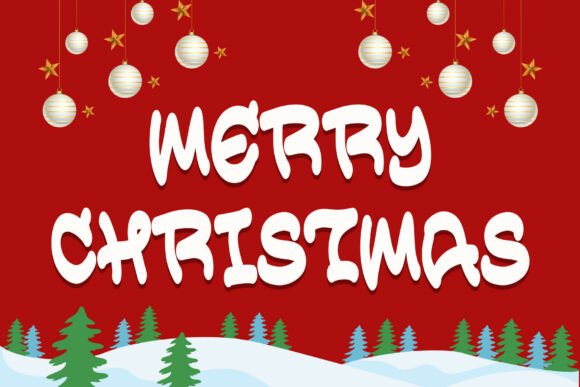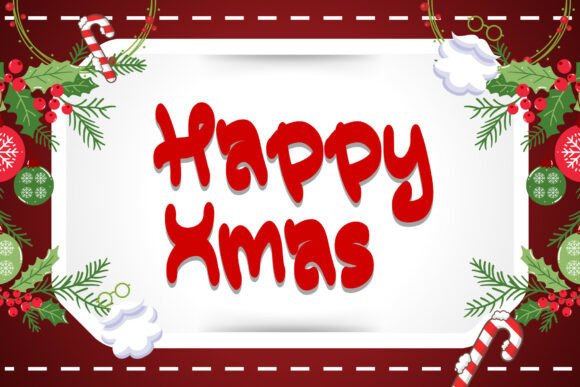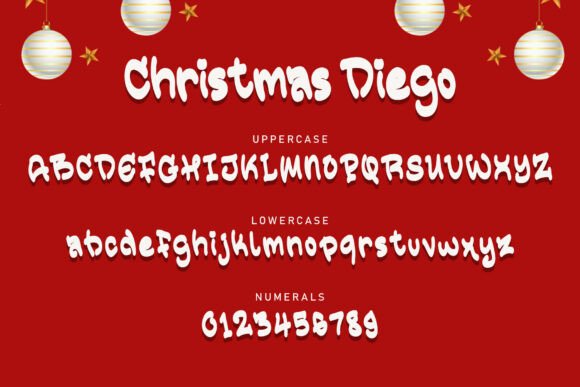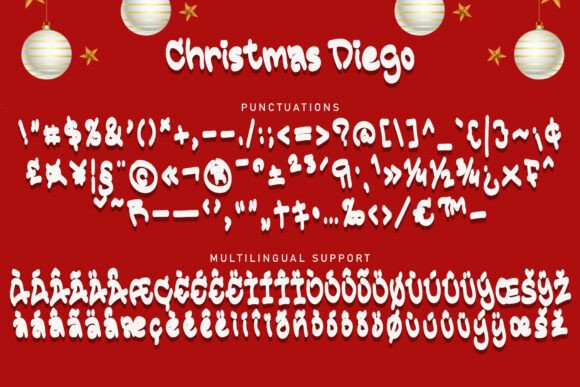
Introduction to Christmas Diego Font
As you sit down to create this year’s holiday card, you’re suddenly hit with a wave of creative excitement. The twinkling lights, the crackling fireplace, and the sound of jingling bells all swirl together in your mind, inspiring a design that’s equal parts festive and fun. This is the magic of the holiday season, and the perfect opportunity to unleash your creativity with the Christmas Diego Font.
For designers, finding the right font can make all the difference in bringing a project to life. And with the Christmas Diego Font, you’ll be spoiled for choice. This cheerful and bold display font is bursting with holiday spirit, featuring playful, rounded letters and a snow-like charm that’s sure to put a smile on anyone’s face. Whether you’re working on a high-quality design project or just need a fun and free download for a creative project, the Christmas Diego Font is the perfect resource to add some holiday cheer to your work.
With its transparent background and versatility, the Christmas Diego Font is the perfect addition to any design, making it easy to use across print and digital formats. And the best part? It’s free to download, making it an invaluable resource for designers of all levels. So why settle for a generic font when you can bring a little bit of holiday magic to your work with the Christmas Diego Font?
Key Features of Christmas Diego Font
- High-quality design resource ideal for creative projects and festive occasions.
- Transparent background allowing for seamless integration into various design elements.
- Unique, hand-drawn design elements that add a personal touch to any project.
- Perfect for use in digital designs, such as social media graphics, presentations, and websites.
Honest Review: Christmas Diego Font
I recently stumbled upon the Christmas Diego Font, a free design resource that caught my eye. As a designer, I’m always on the lookout for high-quality fonts to elevate my creative projects. In this review, I’ll share my honest thoughts on this font.
- Unique and festive design: The Christmas Diego Font has a distinctive, playful feel that’s perfect for holiday-themed projects.
- Transparent background: This feature allows for seamless integration with other design elements and backgrounds.
- High quality: The font is well-crafted, with clear and readable lettering.
- Limited font weights: The Christmas Diego Font only comes in a few weights, which might limit its versatility for certain projects.
- No extended character set: The font doesn’t include additional characters, such as accented letters or special symbols.
Overall, the Christmas Diego Font is a solid addition to any designer’s toolkit. Its unique design and high quality make it a great choice for festive projects, but its limitations might make it less suitable for more complex designs. If you’re looking for a free font to spice up your holiday designs, the Christmas Diego Font is definitely worth checking out.
To get the most out of the Christmas Diego Font, use it with a transparent background to add depth and dimension to your designs. Experiment with different font sizes, colors, and combinations to create unique and eye-catching effects.
The Christmas Diego Font is perfect for creating festive holiday designs, such as:
- Christmas cards and invitations
- Holiday social media graphics
- Decorative posters and banners
- Gift tags and wrapping paper